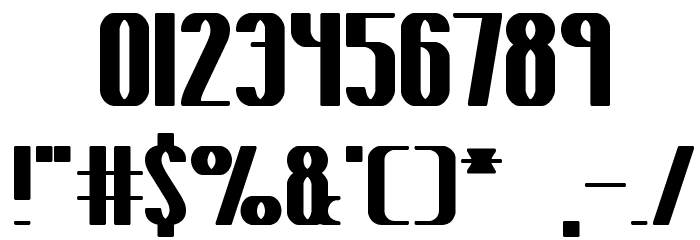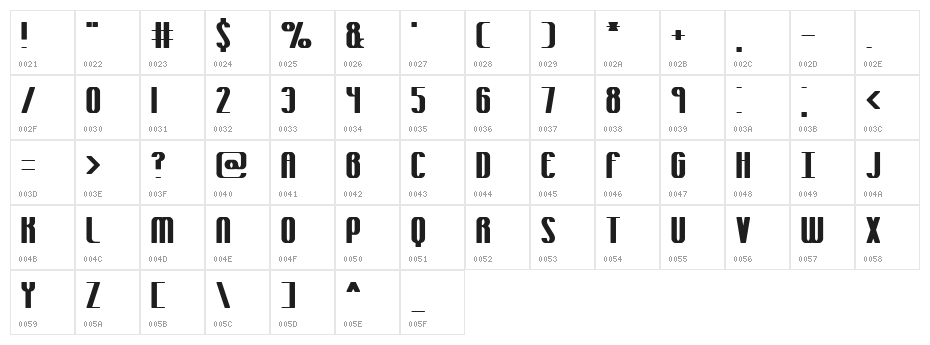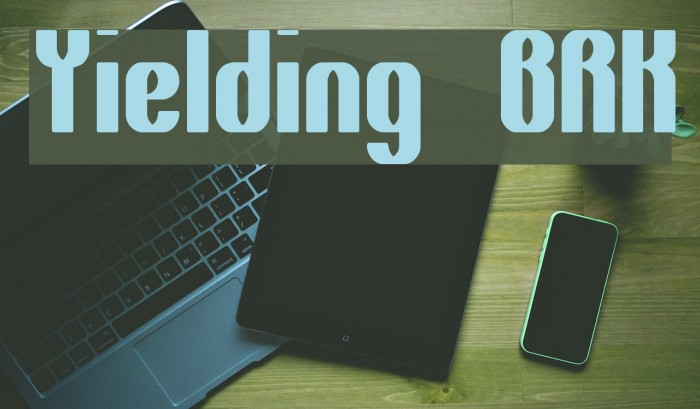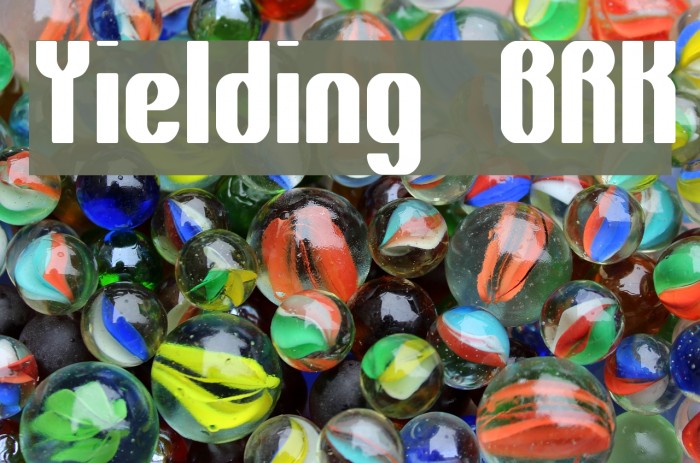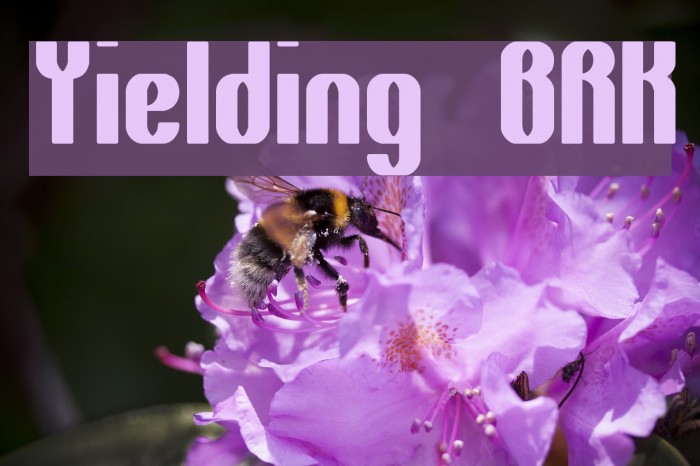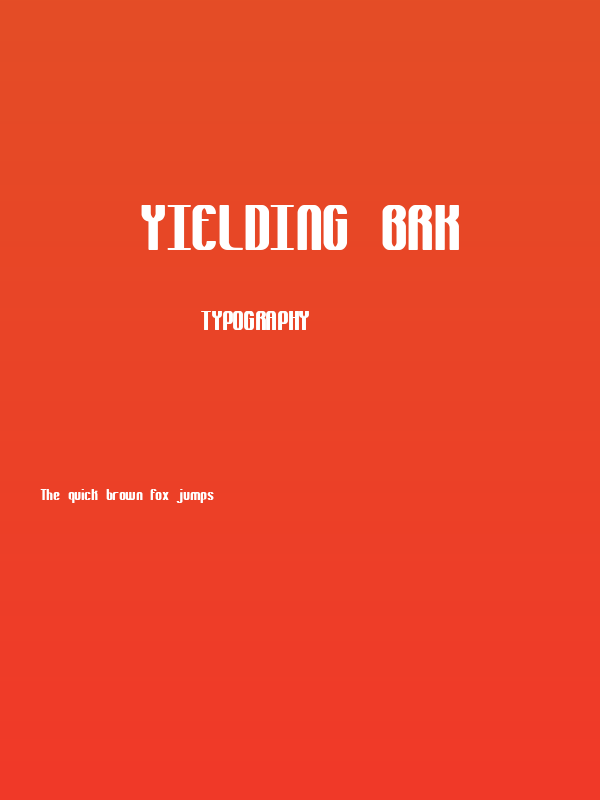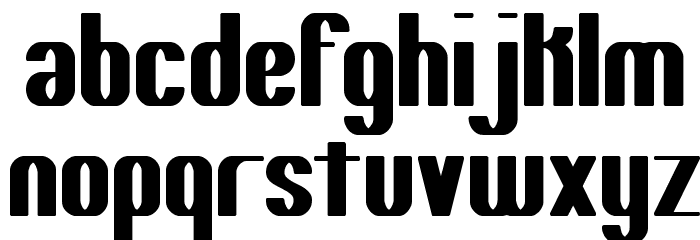
Yielding BRK Font
Yielding BRK Description
This font features a bold and striking design with a modern twist. The characters are tall and narrow, with a unique geometric flair that gives them a distinctive appearance. The uppercase letters are particularly prominent, with sharp angles and clean lines that create a sense of strength and stability. The lowercase letters maintain this boldness while offering a slightly softer edge, making the font versatile for various design needs. Numbers and special characters are equally bold, ensuring consistency across all text elements. The overall style is both contemporary and assertive, making it ideal for attention-grabbing headlines and impactful branding.
| Proposed Projects | Ideal for branding, posters, headlines, and any design requiring a bold statement. |